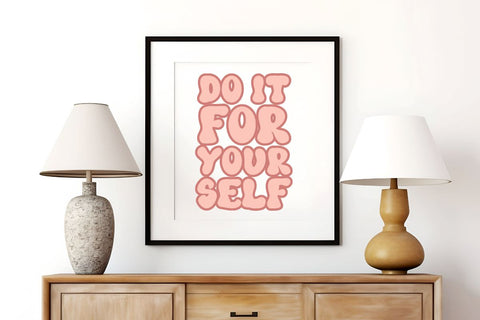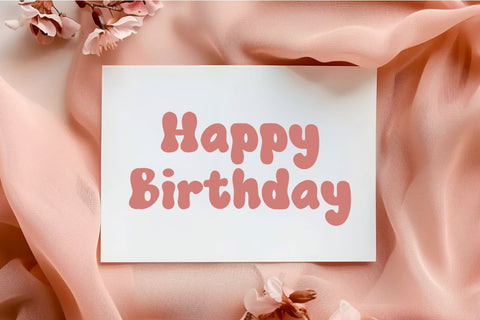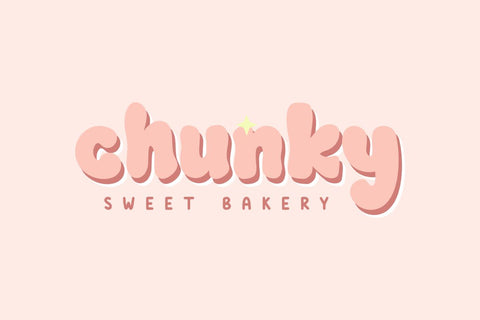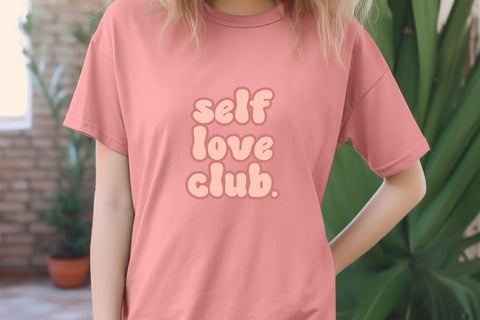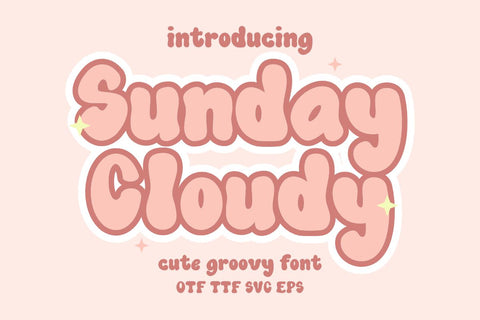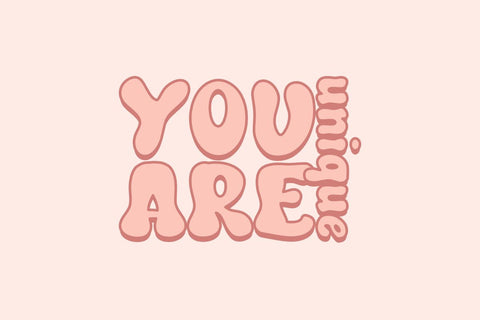
Sunday Cloudy - Fun Groovy Font
Sunday Cloudy is a fun bold groovy display font. This font is inspired by typography with a cute style. This font has a retro and cute style. This font is perfect for pizza packaging, birthdays, candy, bread, bakery, etsy branding and other ideas. Apart from that, this font is also suitable for craft needs such as t-shirts, apparel, wall art, tote bags, tumblers, sublimation, DIY, stickers, logos, hoodies, stamps, children's book covers, and other creative ideas. Not only that, this font is also beautiful for the web, YouTube thumbnails, social media, etc